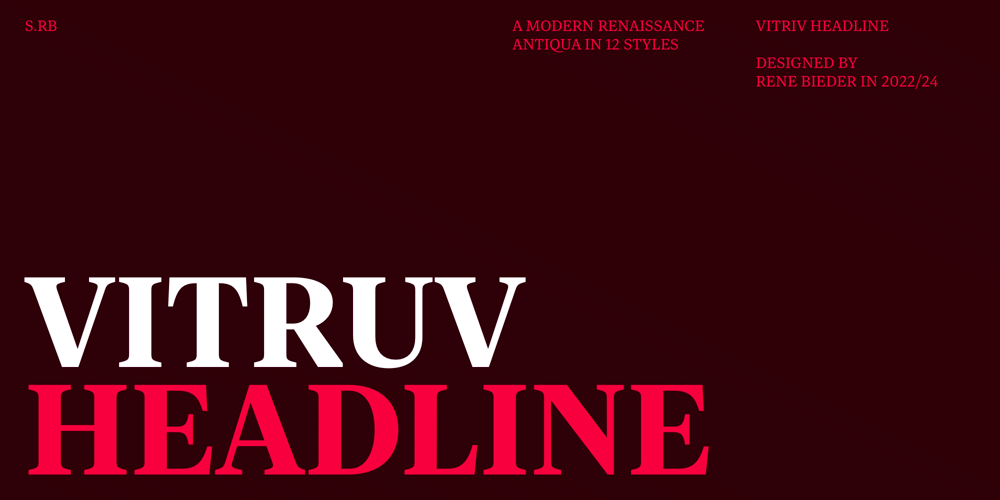
Vitruv Headline Font Family was designed by René Bieder and published by René Bieder. Vitruv Headline contains 12 styles and family package options. The Vitruv typeface collection is a modern interpretation of French Renaissance Antiquas with their masterpieces of the 15th and 16th centuries. The family combines the elegance of timeless work of Garamond and Plantijn with the robustness and versatility requirements of contemporary graphic design. Guided by the principles of ideal proportions and the principles of the ancient architect Vitruvius, Firmitas (Firmness), Utilitas (Utility), and Venustas (Beauty), the typeface collection extends into three subfamilies.Vitruv Poster is designed for large headlines with an elegant appearance. With its tight spacing, it creates a timeless, elegant look in large font sizes. Vitruv Headline is aimed at users looking for a universal stroke weight, between the robust forms of the Text family and the fine details of the Poster family. The Text family is optimized for body text, as its name suggests. With its rugged construction and open shapes, it offers optimal readability in small font sizes.With its wide range of styles and subfamilies, Vitruv can be used in a variety of design applications. Ranging from editorial design to brand identities, it is equipped for all areas of typesetting and modern graphic design requiring a timeless, trustworthy and elegant voice.